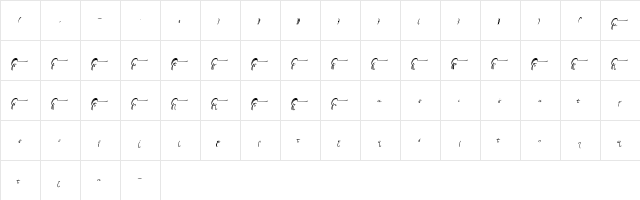
Galdr Regular
Design Context for Galdr Typeface
Galdr is a composed and adaptable typeface that performs quietly and consistently across a wide range of design contexts.